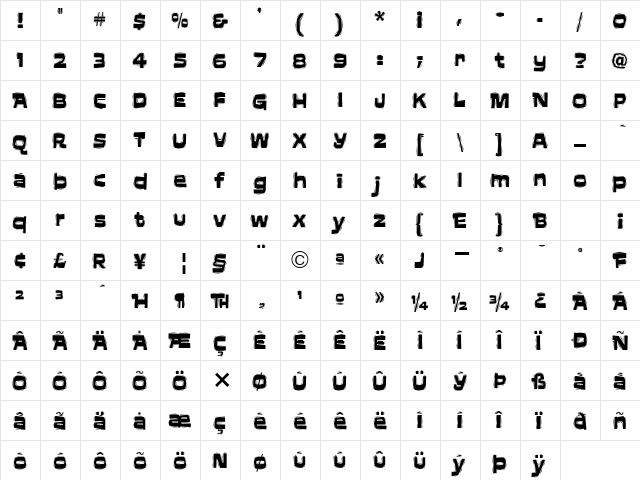
AftershockITC TT Regular
Design Context for AftershockITC TT Typeface
AftershockITC TT is a composed and adaptable typeface that performs quietly and consistently across a wide range of design contexts.